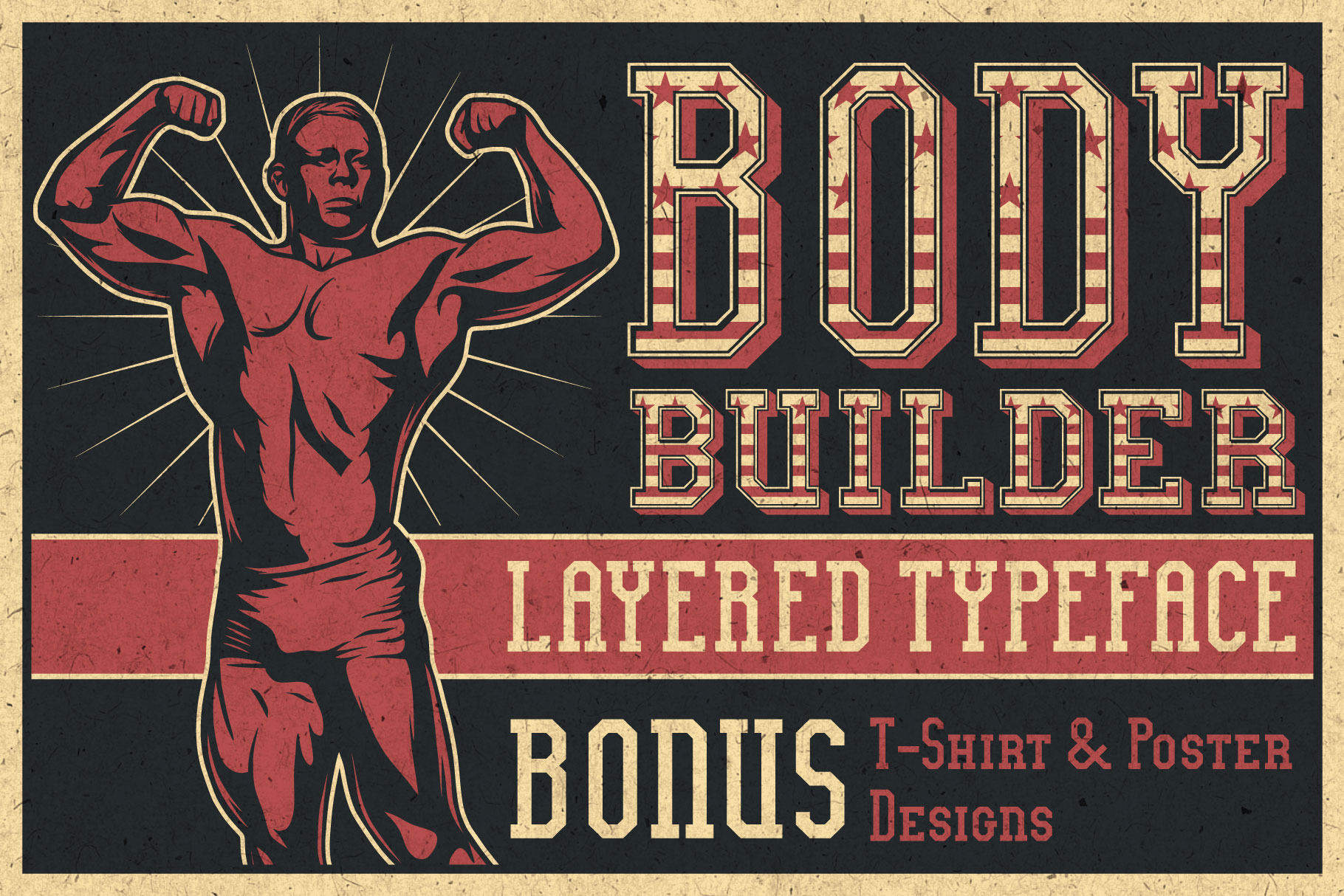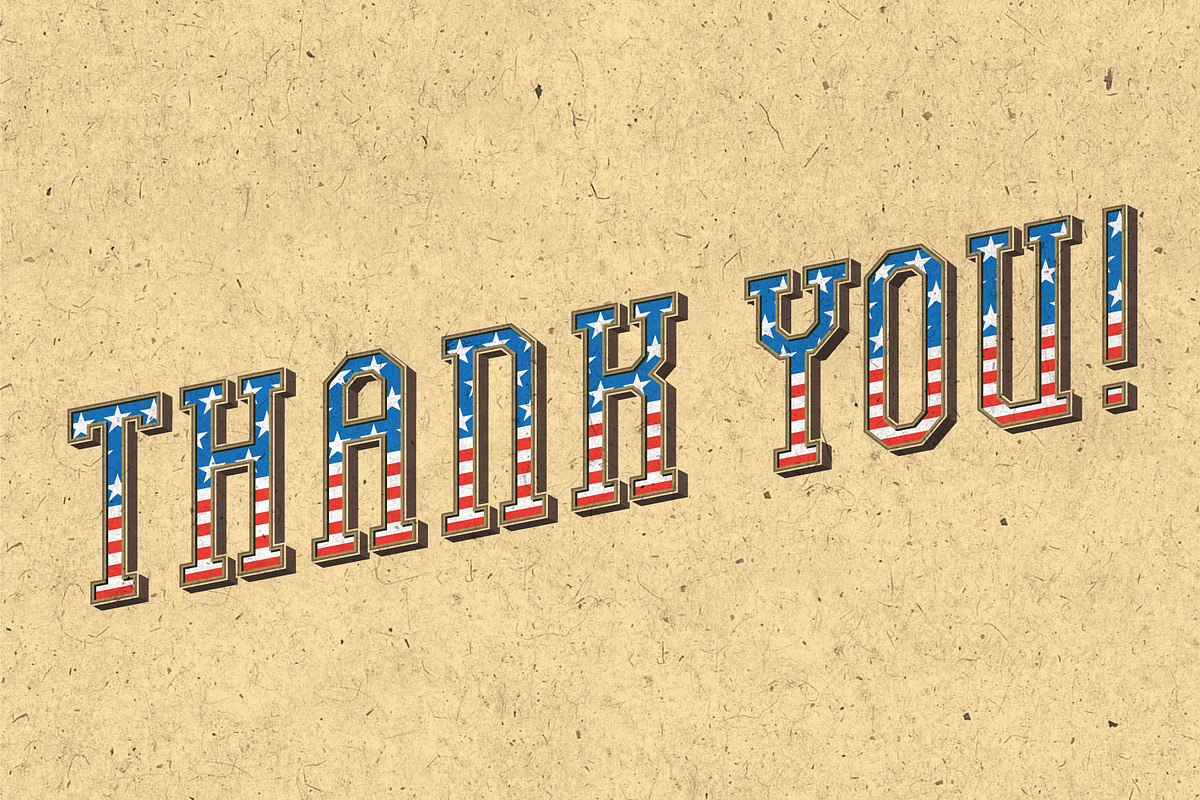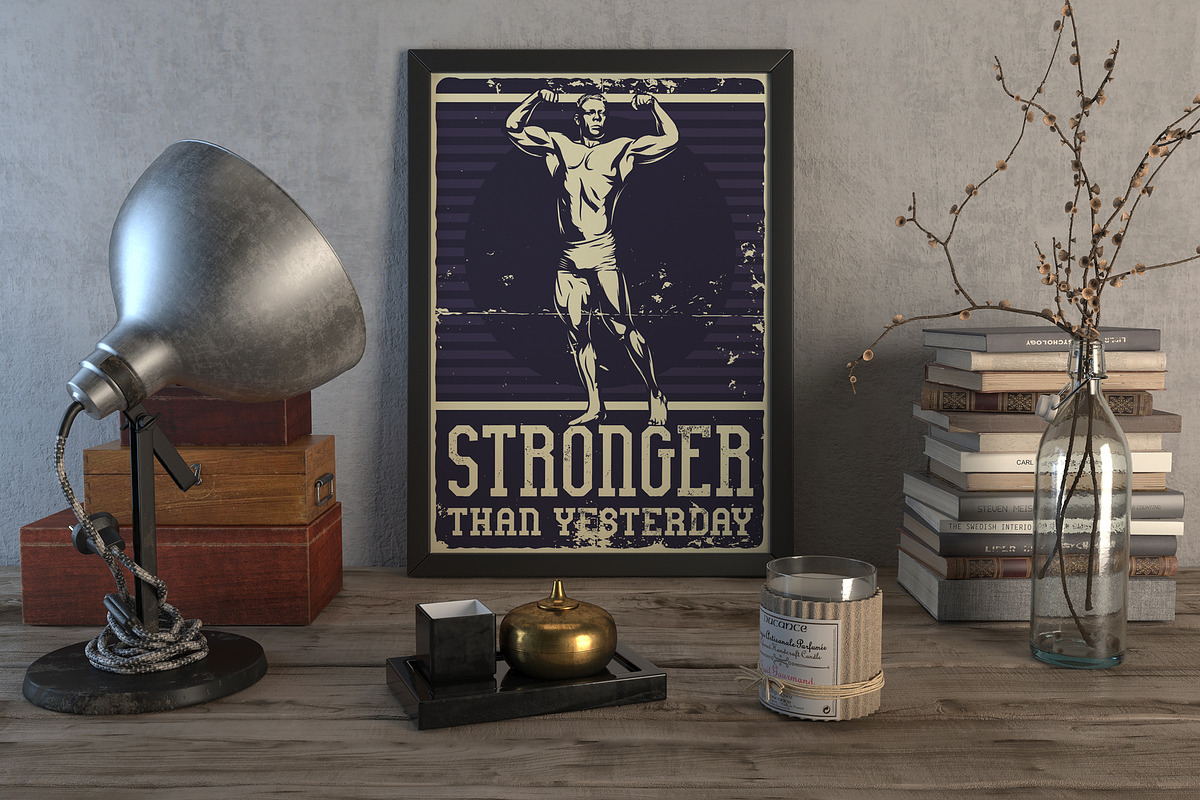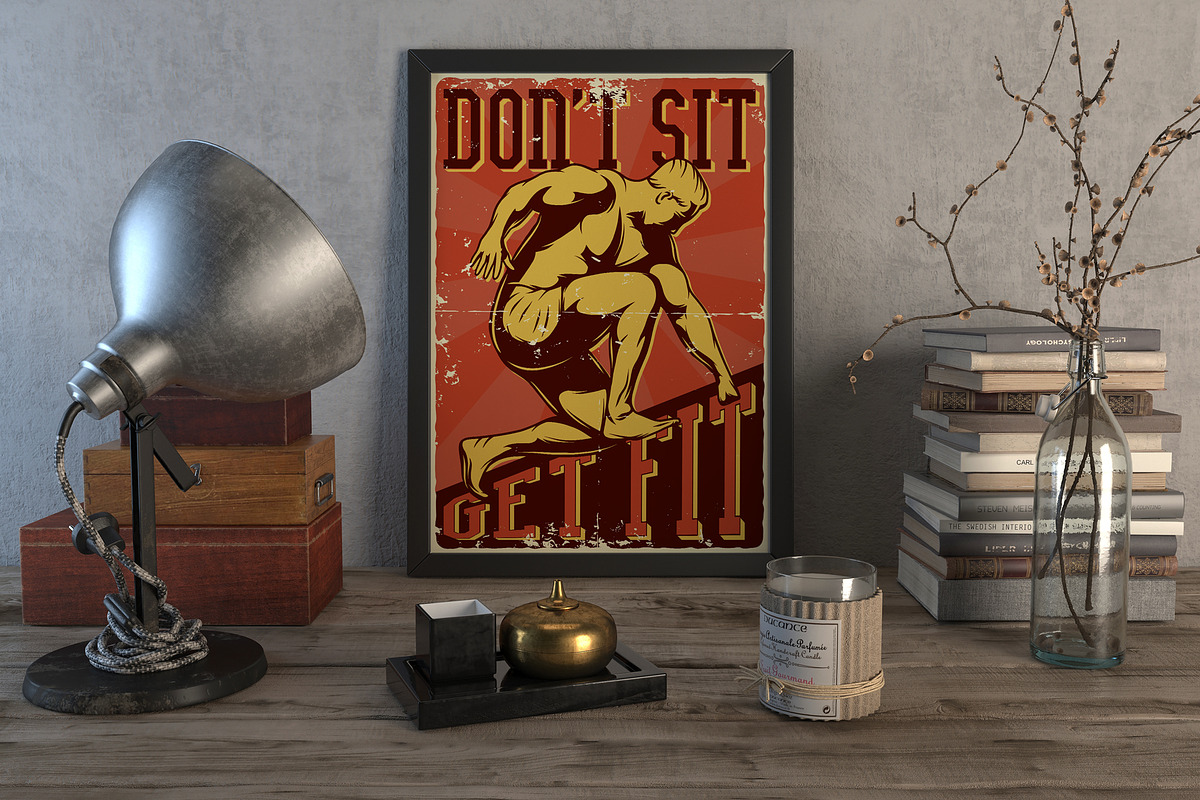
Bodybuilder Layered Font
Introducing a vintage look simple and minimalistic label font named "Bodybuilder". All available characters you can see at the screenshot. This font have 14 styles (including layered effect styles, rough and color version). This font will good viewed on any retro design like poster, t-shirt, label, logo etc.